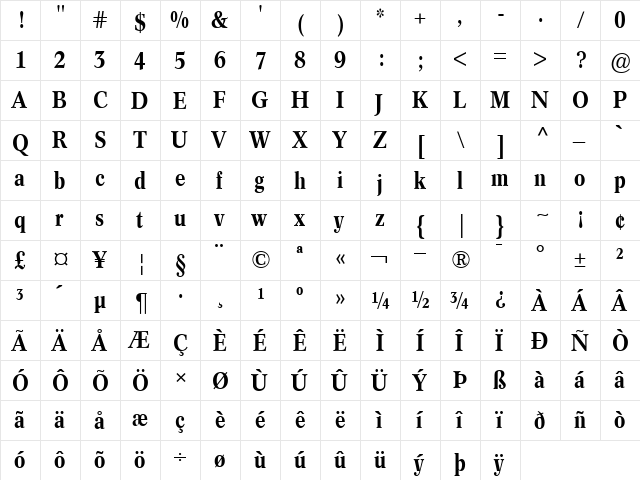
ConcordeBE-CondensedMedium Medium
Design Context for ConcordeBE-CondensedMedium Typeface
ConcordeBE-CondensedMedium offers clean, dependable letterforms without strong stylistic allegiance, making it a practical choice for designers who need flexibility. Its narrow stance lets it pack a punch even in space-constrained designs.